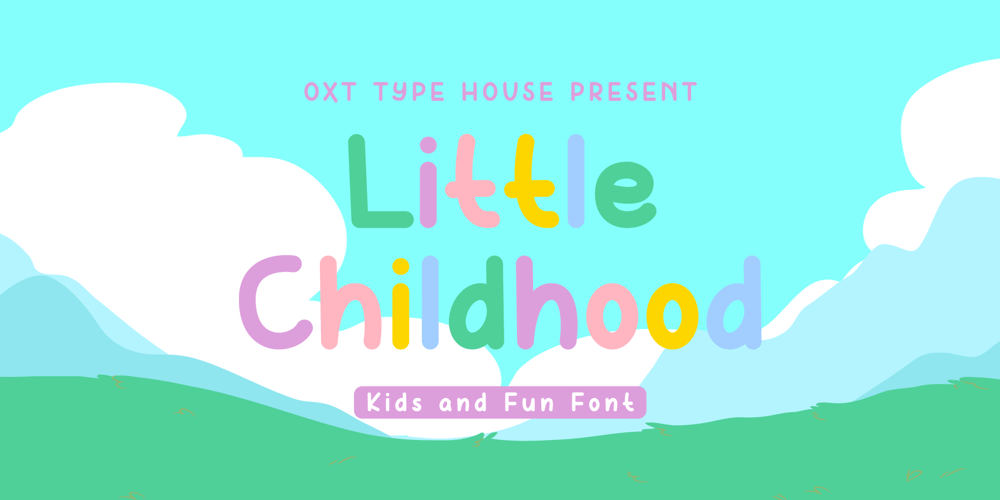
Little Childhood Font Family was designed by Oksta Aziz Rachmaddan and published by Oxt Type House. Little Childhood contains 1 styles and family package options. LITTLE CHILDHOOD is a playful and whimsical font designed by OXT Type House, ideal for children’s products, educational materials, and fun branding projects. This font embodies the essence of childhood with its friendly, rounded shapes and soft letterforms, capturing a joyful and inviting feel. With multilingual support and a full range of alphabet, punctuation, and numeral characters, LITTLE CHILDHOOD ensures versatility across various applications. Its warm and approachable style makes it perfect for anything needing a touch of kindness and magic.